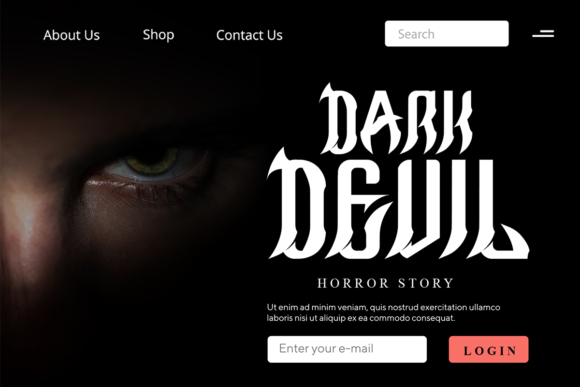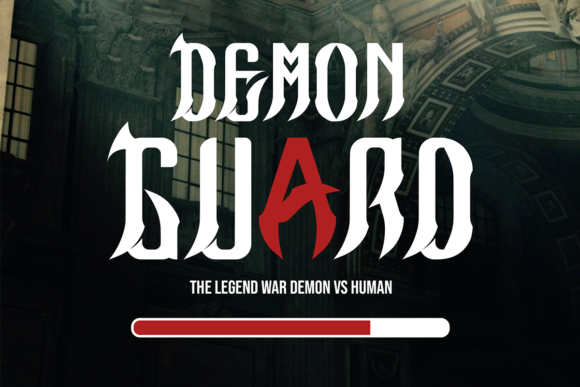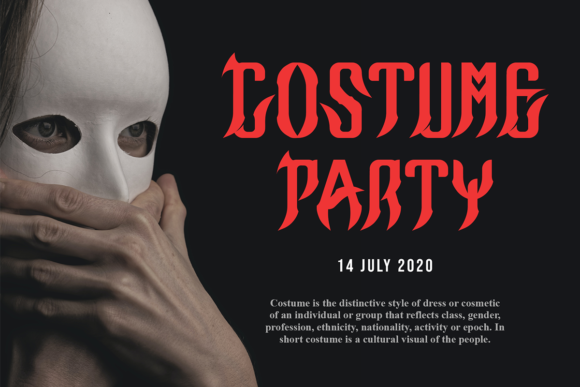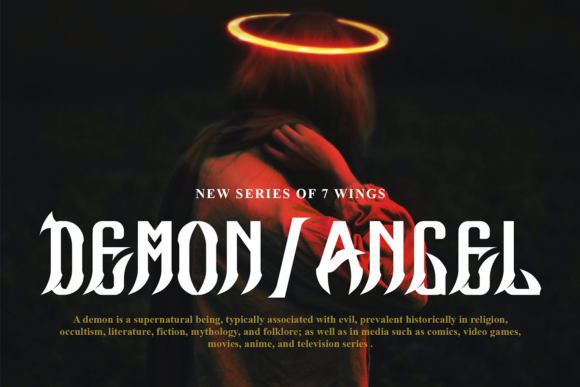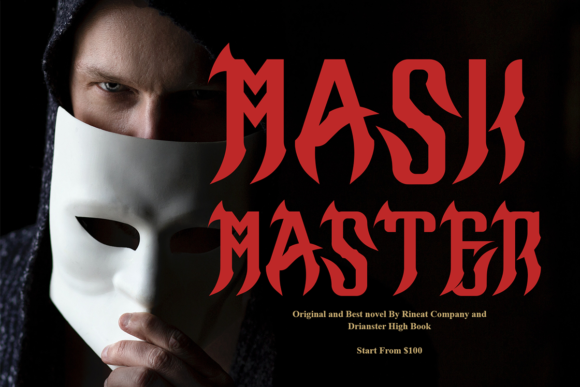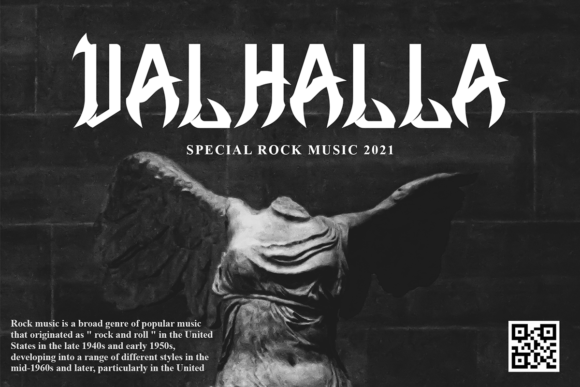
Demon Wings Font: Unleash the Horror with this Display Font
Are you a designer or crafter looking for a unique and eerie font to add a touch of horror to your projects? Look no further than the Demon Wings Font, a horror display font that is perfect for creating brand logos, invitations, greeting cards, and more.
What is Demon Wings Font?
Demon Wings Font is a specially crafted typeface that embodies the essence of horror and the supernatural. With its bold and edgy design, this font is sure to grab attention and evoke a sense of eeriness. The font features intricate details and a haunting aesthetic that makes it perfect for projects that require a touch of darkness and mystery.
Key Features of Demon Wings Font
• Unique Design: Demon Wings Font boasts a one-of-a-kind design that sets it apart from other fonts. Its bold and edgy aesthetic makes it perfect for creating eye-catching headlines and titles.
• Eerie and Haunting: The font’s design is inspired by the supernatural and horror themes, making it perfect for projects that require a spooky touch.
• Versatile: Demon Wings Font can be used for a wide range of projects, including brand logos, invitations, greeting cards, and more.
Uses of Demon Wings Font
Demon Wings Font is a versatile typeface that can be used for a wide range of projects, including:
• Brand Logos: Create a unique and memorable logo for your brand with Demon Wings Font.
• Invitations: Add a touch of horror to your invitations with this eerie font.
• Greeting Cards: Create spooky and eye-catching greeting cards with Demon Wings Font.
• Posters and Flyers: Use the font to create attention-grabbing posters and flyers for horror-themed events.
• Digital Art: Incorporate Demon Wings Font into your digital art projects, such as illustrations and graphics.
Why Choose Demon Wings Font?
There are many reasons why Demon Wings Font stands out from other fonts. Here are a few:
• Unique Design: The font’s unique design makes it perfect for designers and crafters looking for a distinctive typeface.
• High-Quality: Demon Wings Font is a high-quality typeface that is designed to produce crisp and clear results.
Tips for Using Demon Wings Font
Here are a few tips for using Demon Wings Font:
• Use it Sparingly: Because of its bold and edgy design, it’s best to use Demon Wings Font sparingly to avoid overwhelming the reader.
• Pair it with Other Fonts: Pair Demon Wings Font with other fonts to create a unique and visually appealing design.
• Experiment with Colors: Experiment with different colors to find the perfect combination that complements the font’s design.
Demon Wings Font is a unique and eerie horror display font that is perfect for designers and crafters looking to add a touch of horror to their projects. With its bold and edgy design, this font is sure to grab attention and evoke a sense of eeriness. Whether you’re creating brand logos, invitations, greeting cards, or digital art, Demon Wings Font is a versatile typeface that is sure to meet your needs.